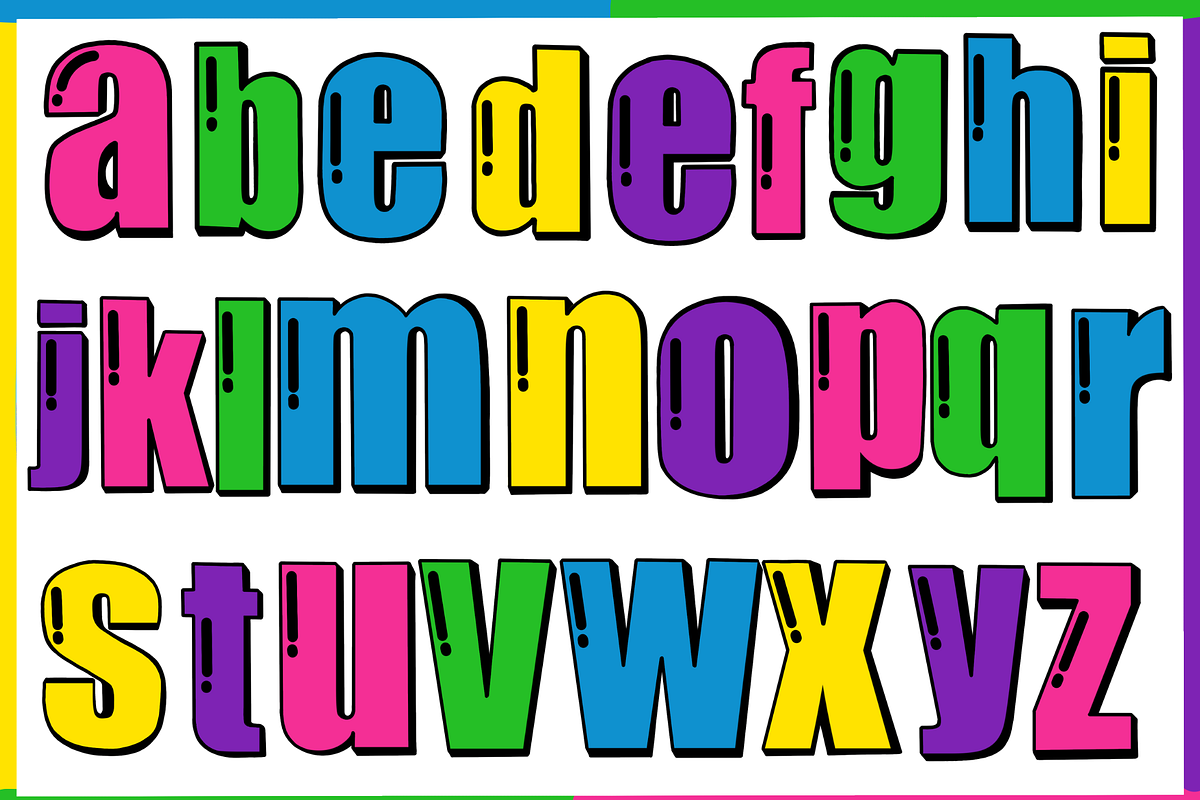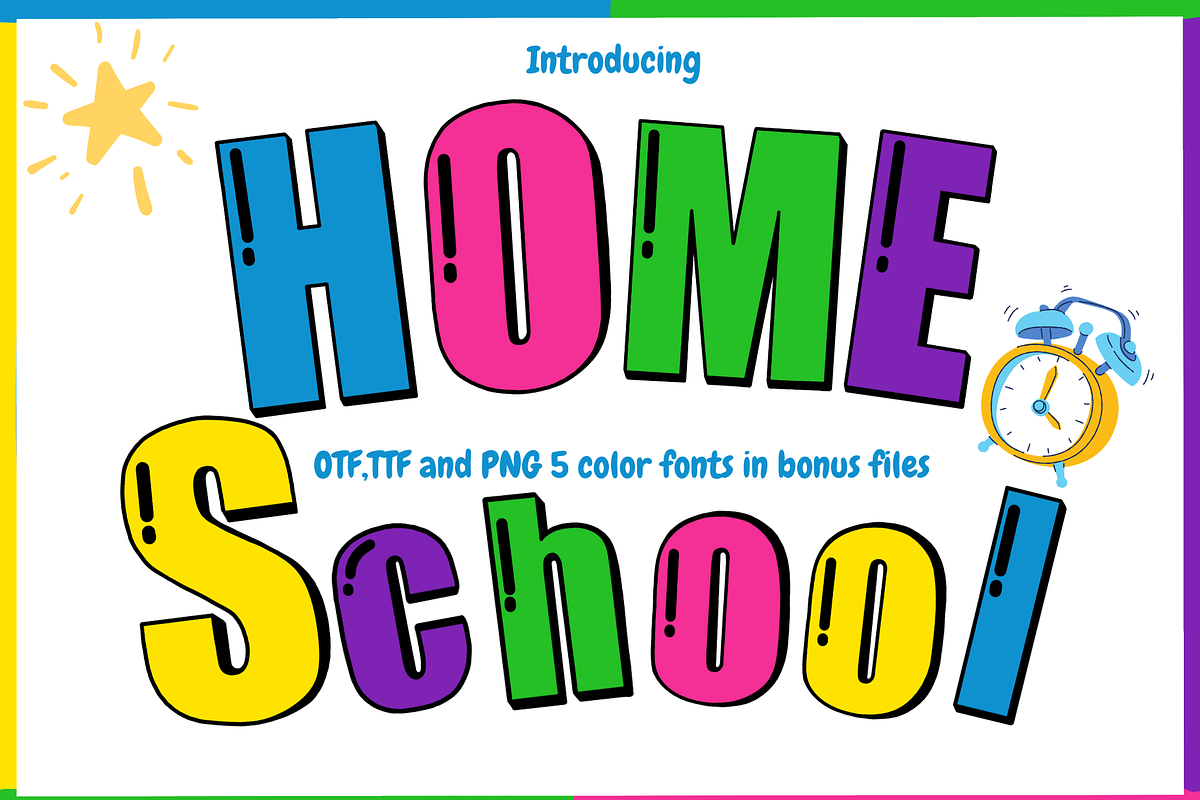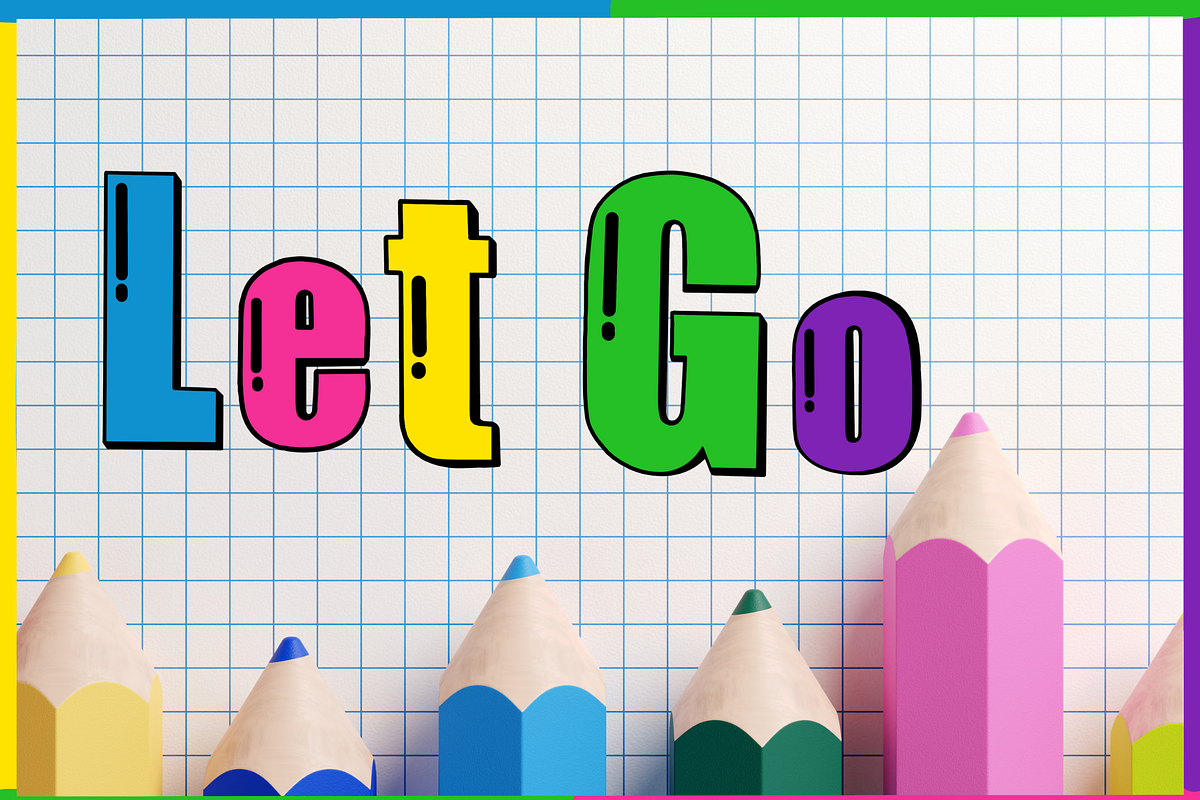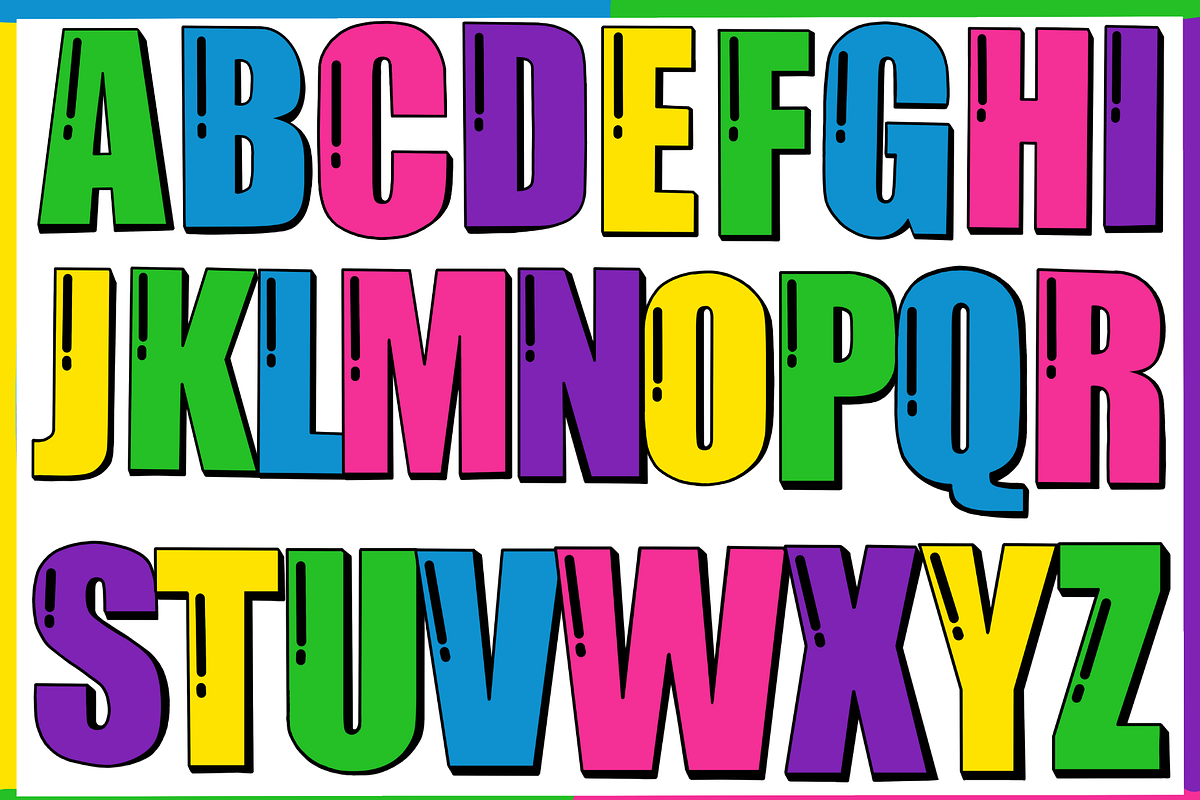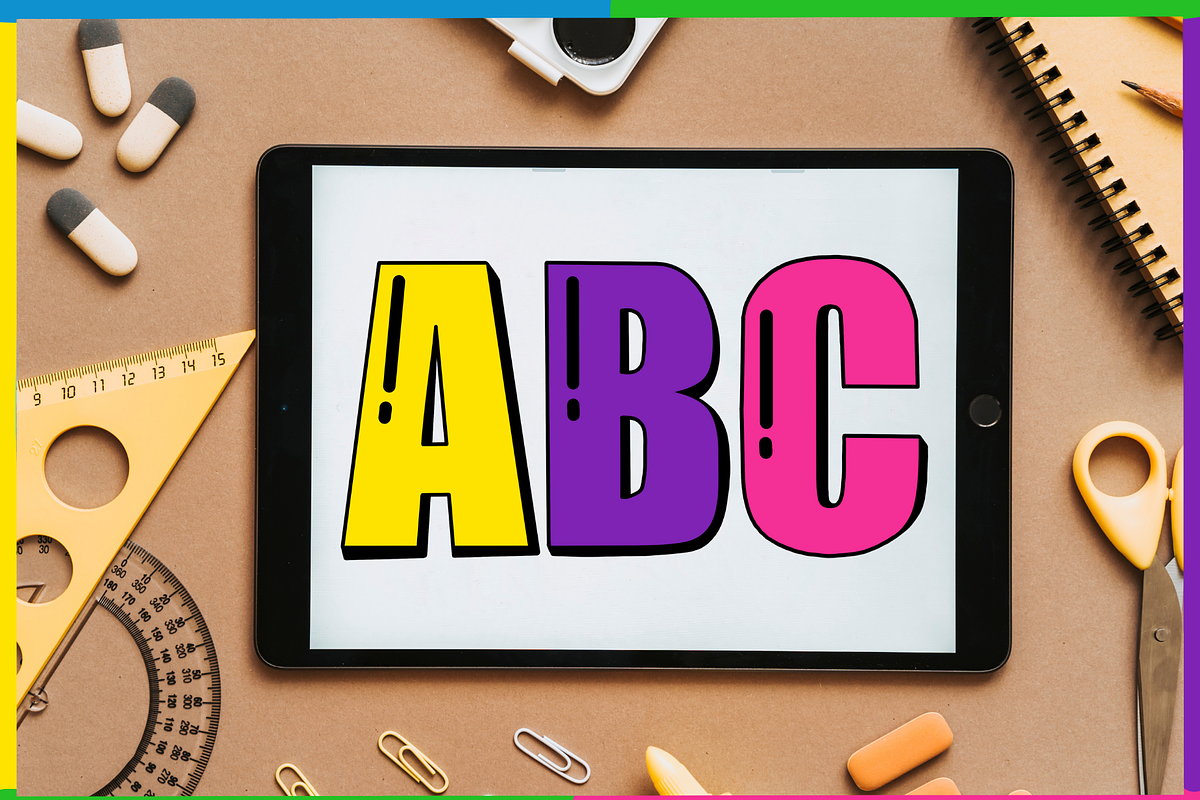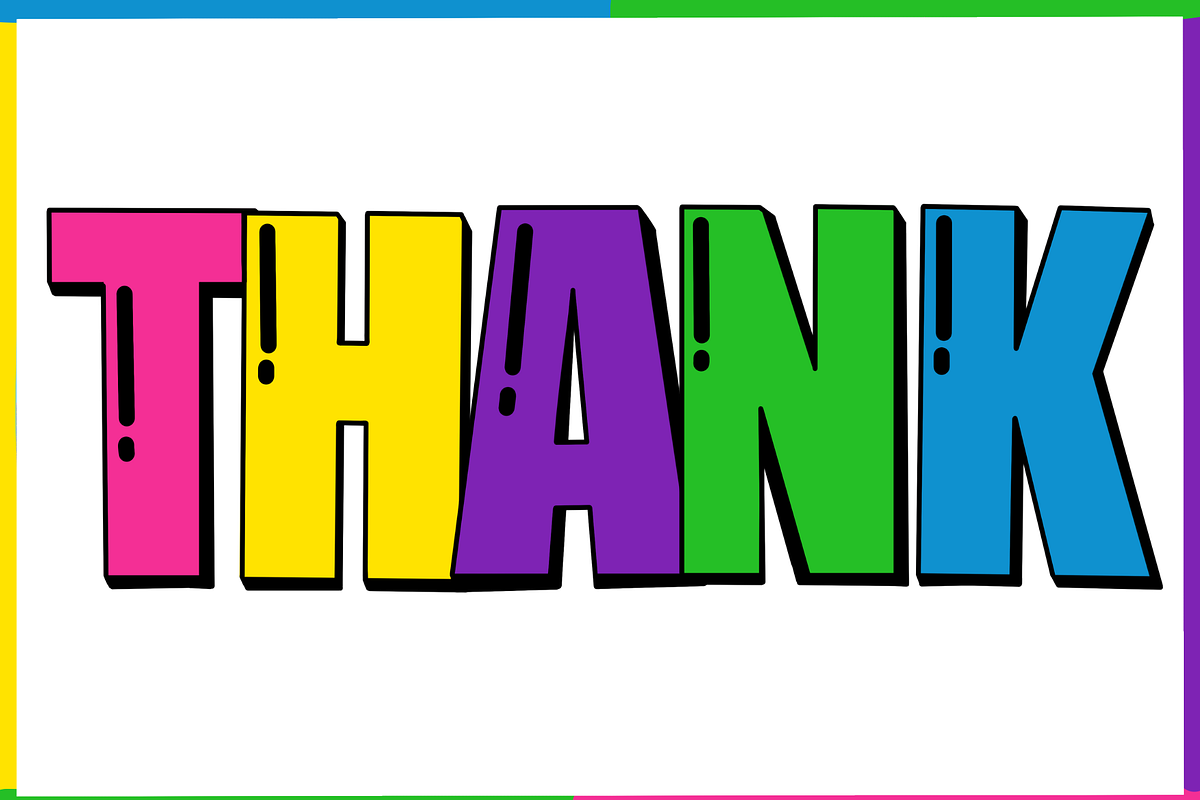
Home School-PNG fonts
Home School Font Super cute handwriting font, simple style, suitable for teaching. decorate the presentation Use for education, advertising, illustration, multi-purpose use. welcome everyone thanks